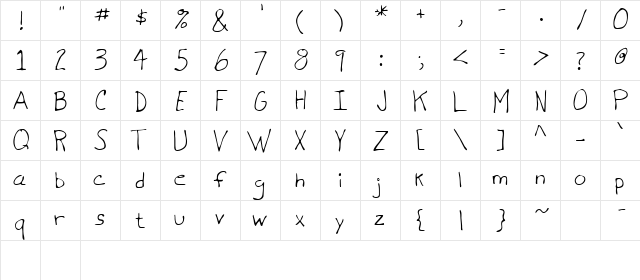
Nelson Regular
Design Context for Nelson Typeface
Nelson takes a measured approach to typography — its balanced proportions and neutral character make it a reliable workhorse for both digital and print work.